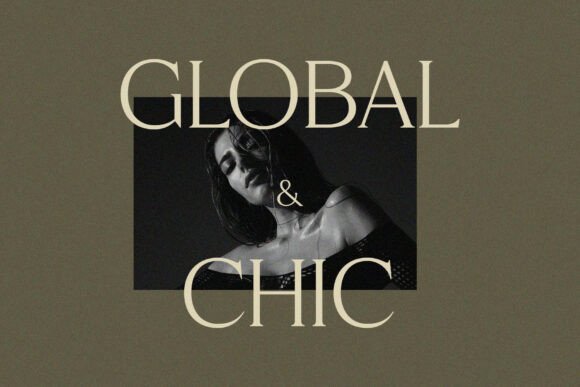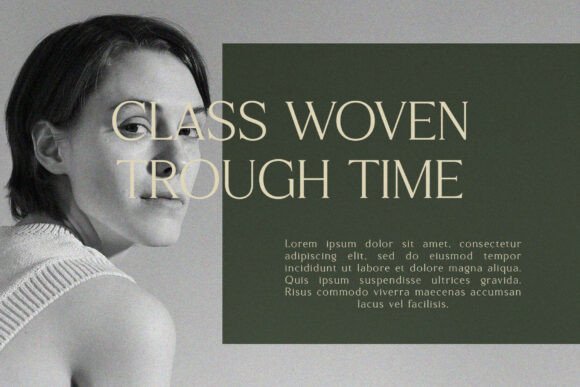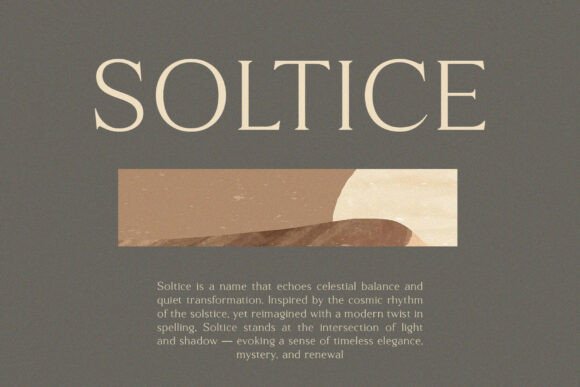
Introduction to Galbety Font
Galbety is a chic and stylish serif font that combines elegance with a touch of modern flair.
Featuring graceful curves, refined serifs, and balanced proportions, Galbety is ideal for sophisticated branding, editorial headlines, wedding designs, and high-end packaging Its versatile aesthetic effortlessly elevates any layout with a polished and timeless feel.
Key Features of Galbety Font
Why Choose Galbety Font?
Galbety Font offers exceptional quality and versatility, making it a valuable addition to your design toolkit. Whether you’re creating for personal projects or commercial use, Galbety Font delivers professional results.